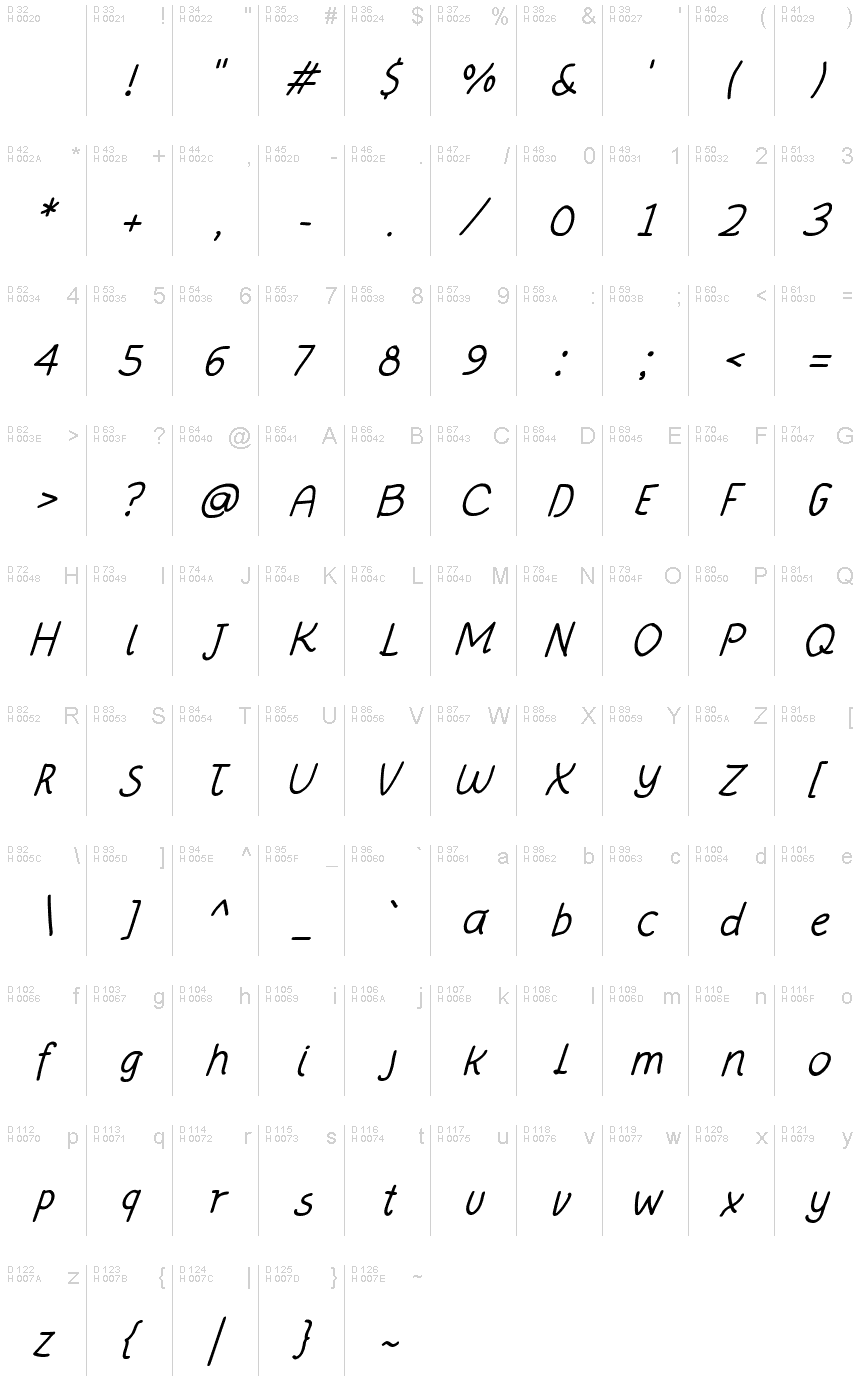
NewFont Medium Oblique
NewFont Medium Oblique, crafted by renowned font designer Vickie Martinez, is a stunning handwriting style font that exudes elegance and sophistication. Its semi-light weight lends a subtle grace to any project it's used in. Perfect for wedding invitations, greeting cards and other stationary designs that require a personal touch. But don't stop there - think outside the box and use this versatile typeface for your branding or web design projects to add an element of warmth and personality. Try NewFont Medium Oblique today and bring your creative vision to life!